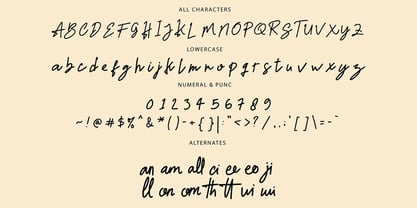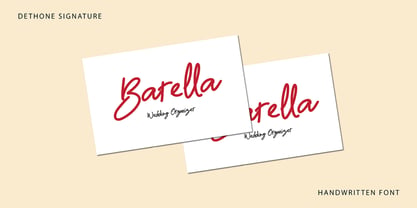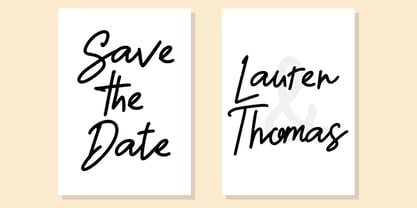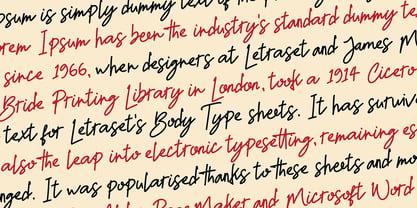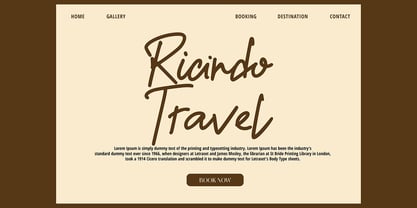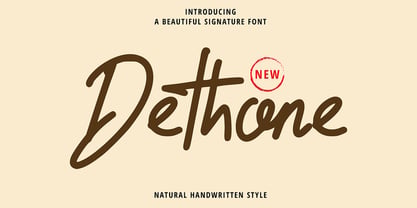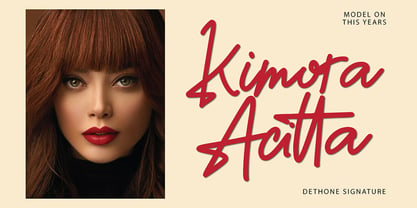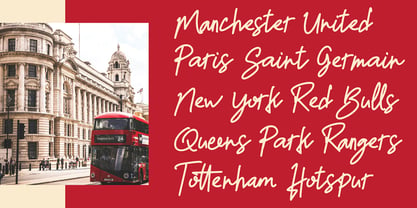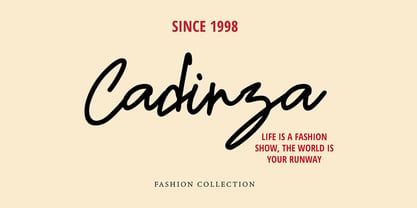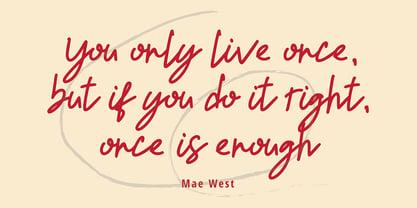
Dethone Signature
by Pointlab
The Dethone Signature Font Family was designed by Ferdiansyah and published by Pointlab. Dethone Signature contains 1 styles. More about this family
Dethone Signature with a handmade Signature style, decorative characters and a dancing baseline! So beautiful on invitation like greeting cards, branding materials, business cards, quotes, posters, and more!!
Designers: Ferdiansyah
Foundry: Pointlab